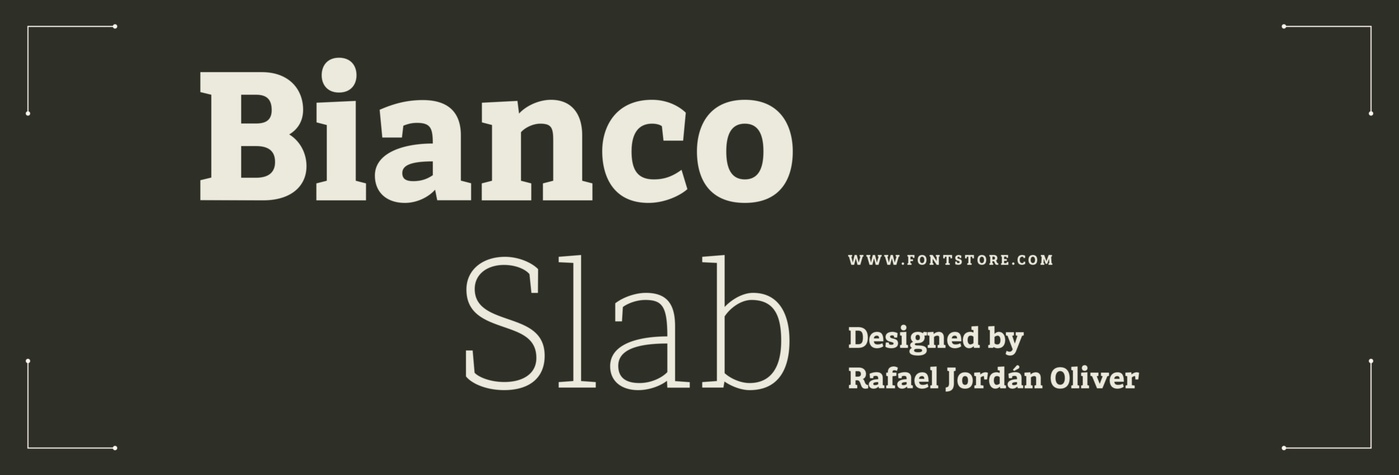
Bianco Slab Font
Bianco Slab Font is perfectly suited for architectural firm branding, modern editorial headlines, contemporary magazine layouts, urban design projects, sophisticated signage systems, minimalist advertising campaigns, clean corporate communications, contemporary art gallery materials, and refined publication designs.
What makes Bianco Slab Font so exciting is its perfect fusion of contemporary minimalism and structural authority that creates striking visual impact while maintaining exceptional clarity and professional sophistication through every precisely crafted letterform. This outstanding typeface combines the commanding presence of slab serif design with clean, modern aesthetics that feel both timeless and cutting-edge. The font's distinctive character shapes and balanced proportions demonstrate exceptional attention to detail while providing the versatility needed for comprehensive brand systems that demand both authority and accessibility. Bianco Slab Font stands out through its ability to convey modern sophistication, structural integrity, and contemporary elegance, making it perfect for projects that need to establish professional credibility while communicating with audiences who appreciate clean design and architectural precision.
The Bianco Slab Font family includes Thin, Light, Regular, Medium, Bold, and Black weights, each maintaining the font's distinctive contemporary character while providing comprehensive design flexibility for various modern applications. The family also features italic variations and extended character sets that enhance the font's versatility and provide complete solutions for sophisticated branding systems requiring consistent performance across multiple platforms.
The technical excellence of Bianco Slab Font includes comprehensive character sets supporting multiple languages, advanced OpenType features, and precision-engineered spacing optimized for both screen and print applications. The font maintains exceptional legibility across all sizes while providing the flexibility needed for complex branding systems that require seamless integration across diverse media platforms and contemporary design contexts.
Whether you're developing architectural identities, designing contemporary publications, creating modern marketing materials, or building comprehensive visual systems that demand clean sophistication and structural reliability, Bianco Slab Font delivers the perfect combination of contemporary style and professional functionality that ensures your projects remain visually compelling and architecturally sound for today's design-conscious audiences seeking modern elegance.